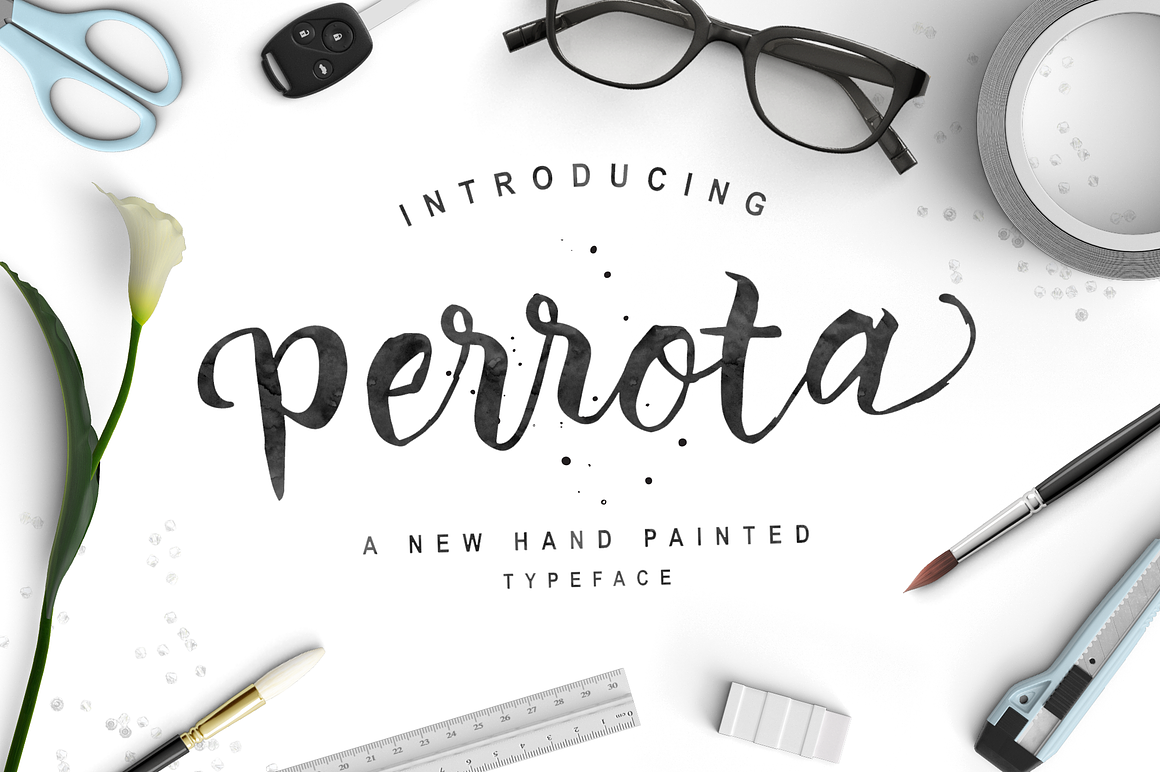
Perrota Typeface
Perrota Typeface is perfect for elegant branding, sophisticated magazines, upscale restaurants, luxury fashion labels, refined corporate identities, premium product packaging, high-end editorial design, boutique hotel materials, exclusive event invitations, cultured art exhibitions, prestigious awards ceremonies, and distinguished lifestyle publications.
What makes Perrota Typeface exciting is its refined sophistication that captures the essence of timeless elegance through meticulously crafted letterforms that exude quality and distinction. This exceptional typeface embodies classical beauty and contemporary refinement, combining traditional proportions with modern sensibilities that speak to discerning audiences seeking authentic luxury and cultural sophistication. The font's balanced character and careful attention to detail convey exclusivity and premium positioning while maintaining the clarity essential for effective communication across diverse applications. Its distinguished personality makes it perfect for brands that want to communicate heritage, craftsmanship, and the enduring appeal of refined taste and cultural values.
The Perrota Typeface family includes light, regular, medium, and bold weights, each available with corresponding italic styles. The comprehensive family features elegant alternates, sophisticated ligatures, and refined swashes that enhance the font's distinguished character and provide designers with extensive luxury typography options for complete brand systems.
Whether you're developing prestigious brand identities, creating luxury marketing materials, or designing sophisticated editorial content, Perrota Typeface Free Download delivers the refined elegance your distinguished projects demand. This premium typeface excels in applications where sophistication and cultural credibility are crucial for brand positioning and audience respect in luxury markets. The font's elegant qualities work magnificently across digital platforms and premium print applications, making it an invaluable asset for designers serving affluent and culturally sophisticated audiences. Luxury brands and prestigious institutions choose this font for its ability to communicate refinement while maintaining perfect readability and timeless appeal. The extensive character set supports multiple languages and includes specialized luxury symbols, expanding its versatility for international premium applications and multilingual sophisticated communications. Professional designers appreciate its seamless performance across various media while maintaining consistent brand expression and cultural resonance. When you incorporate this exceptional typeface into your luxury communications, you're selecting a typography solution that celebrates refined taste and cultural sophistication, ensuring your brand connects with discerning audiences while maintaining the distinguished credibility essential for success in competitive luxury markets and prestigious industries that cater to consumers seeking authentic quality, cultural depth, and timeless elegance in their lifestyle choices and professional associations.